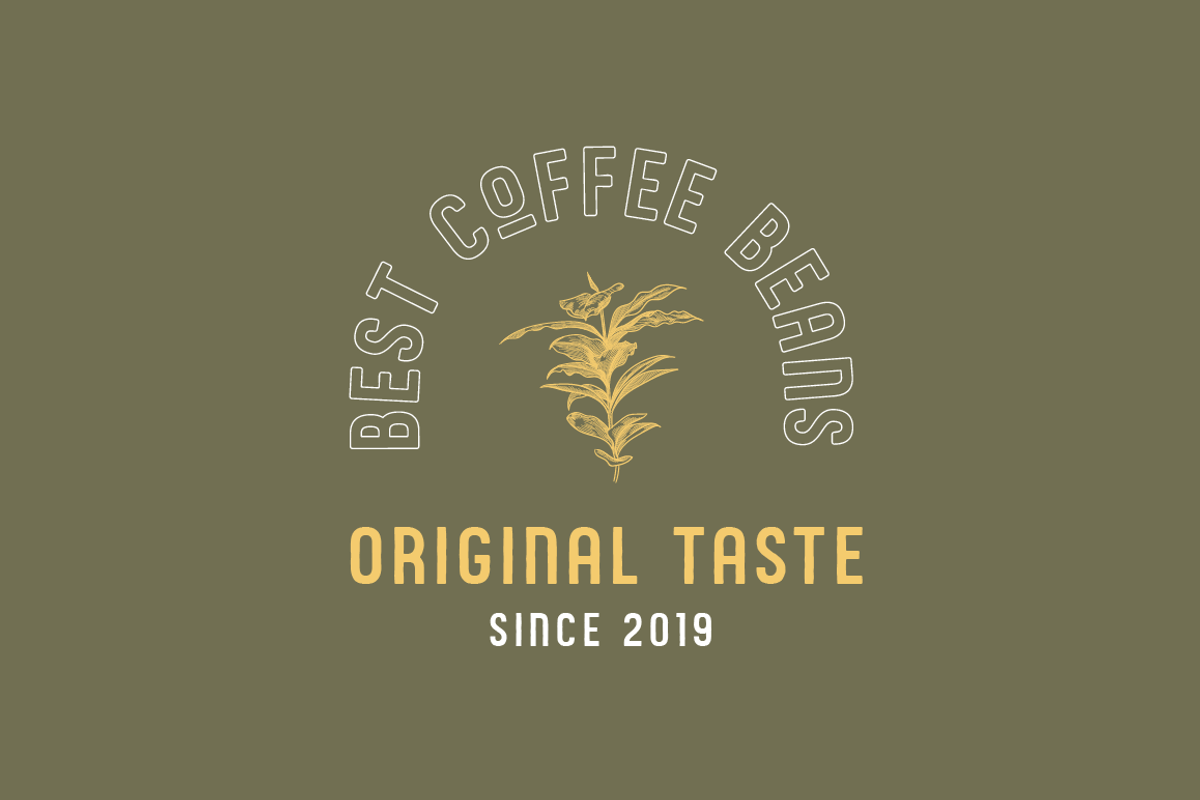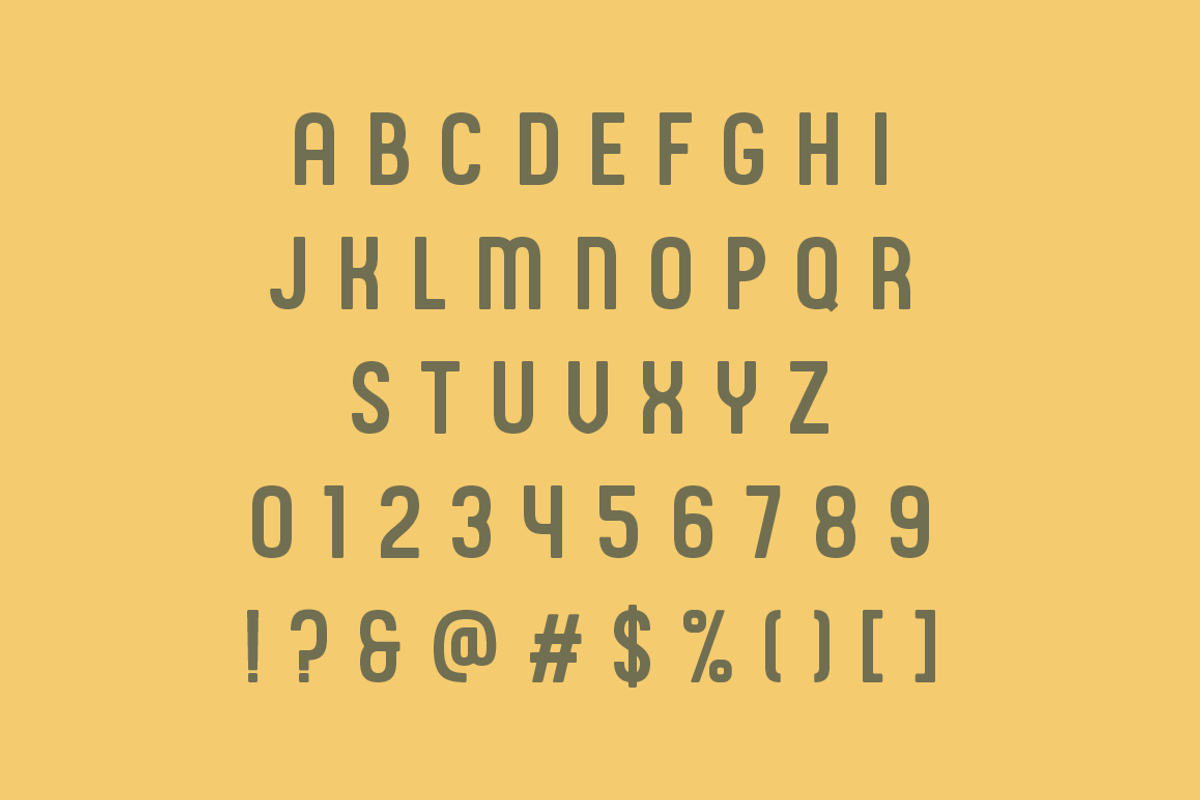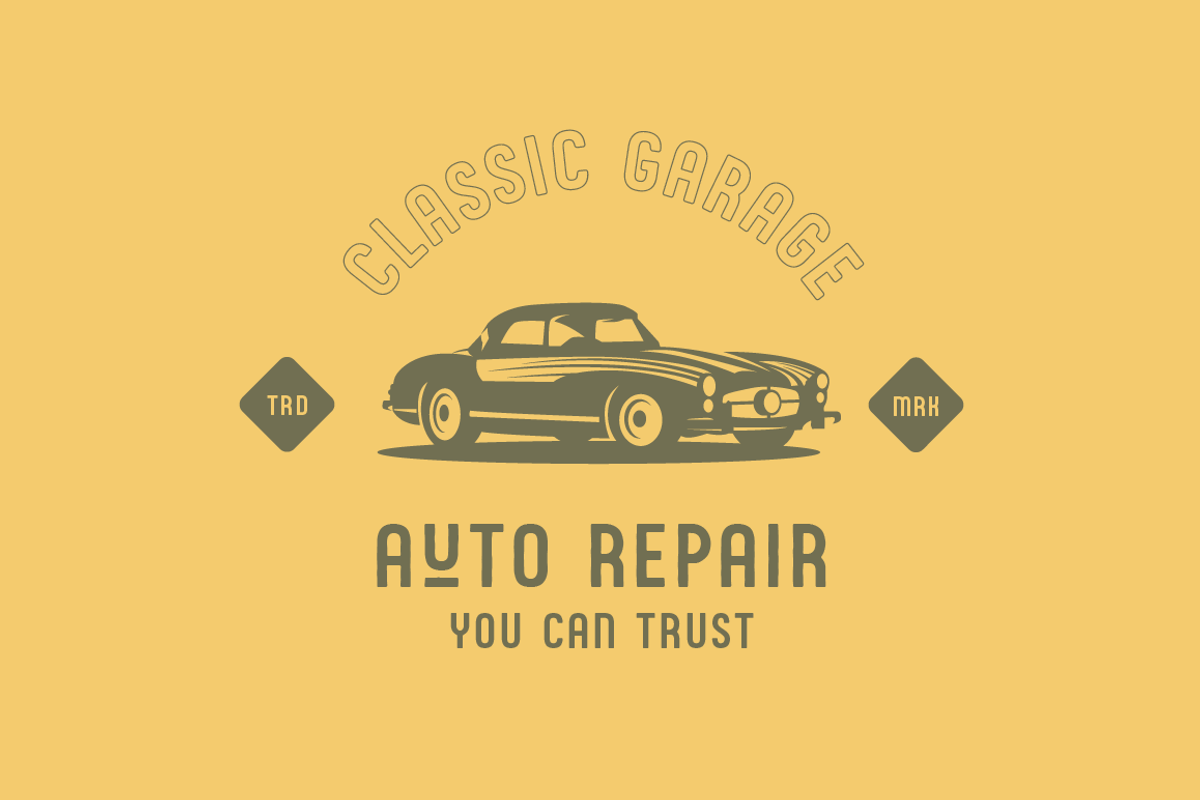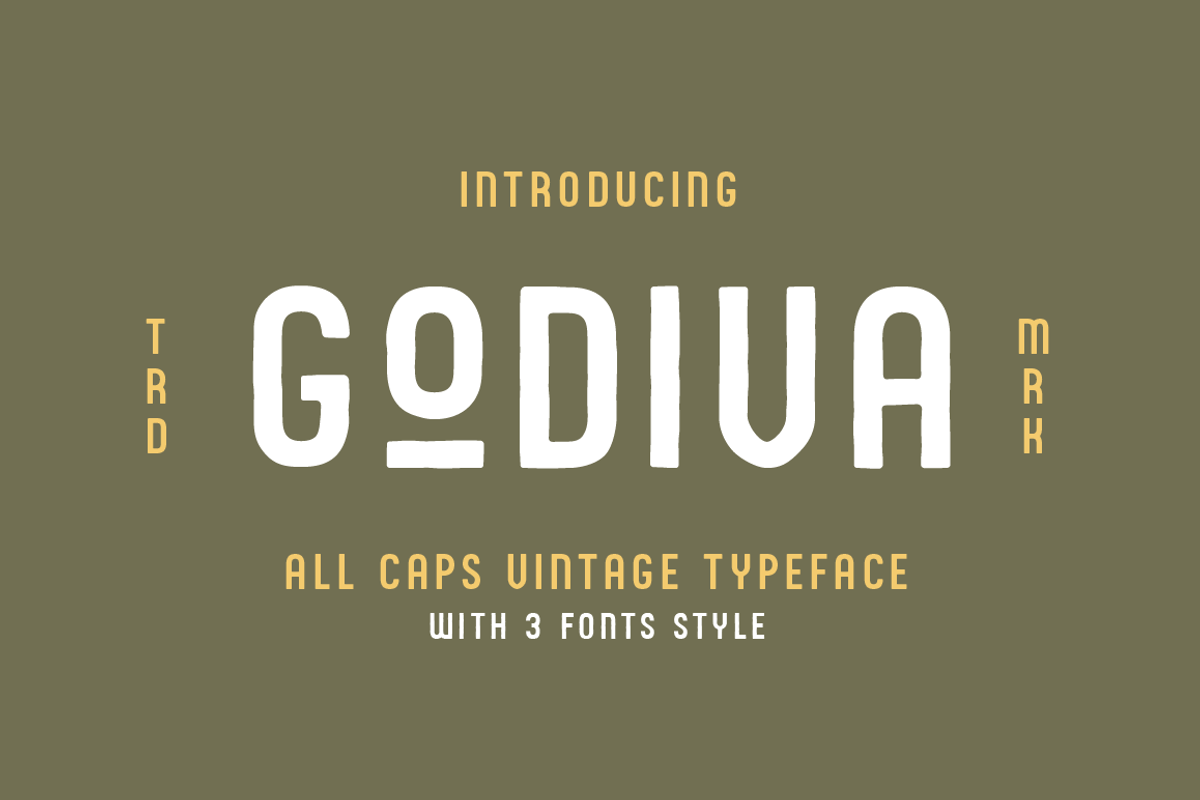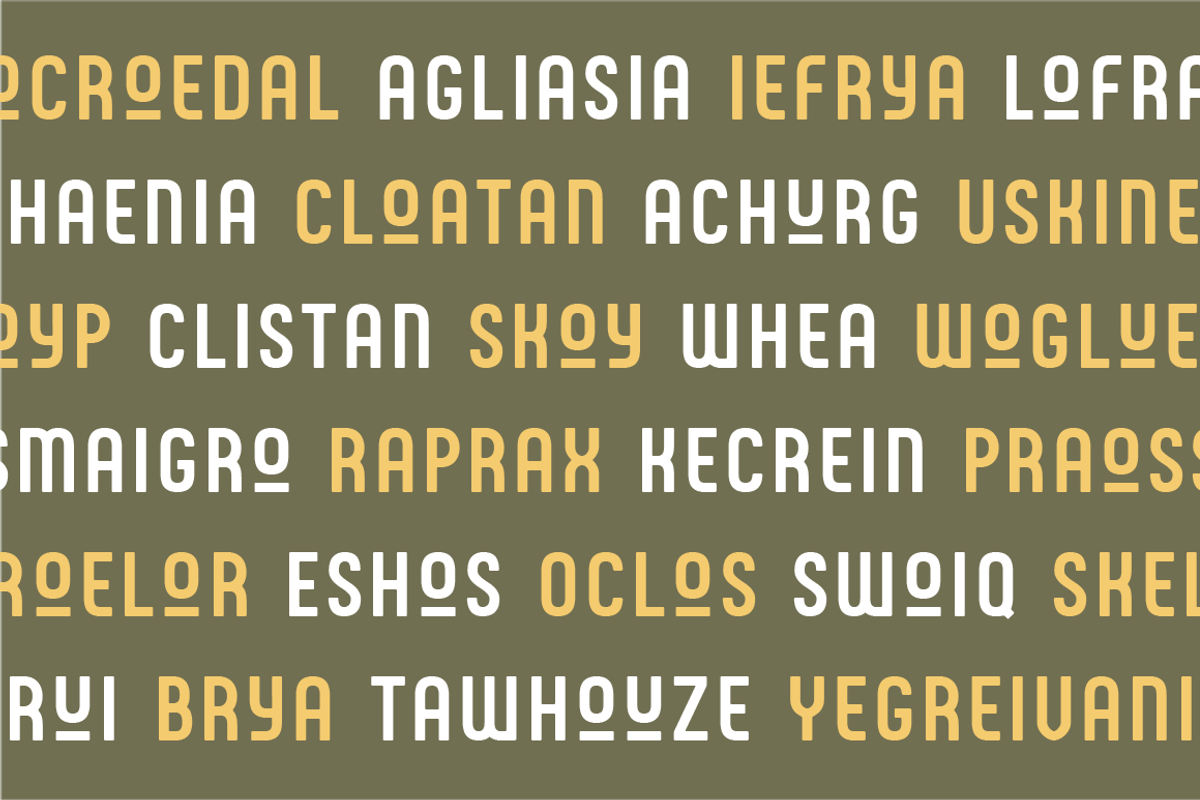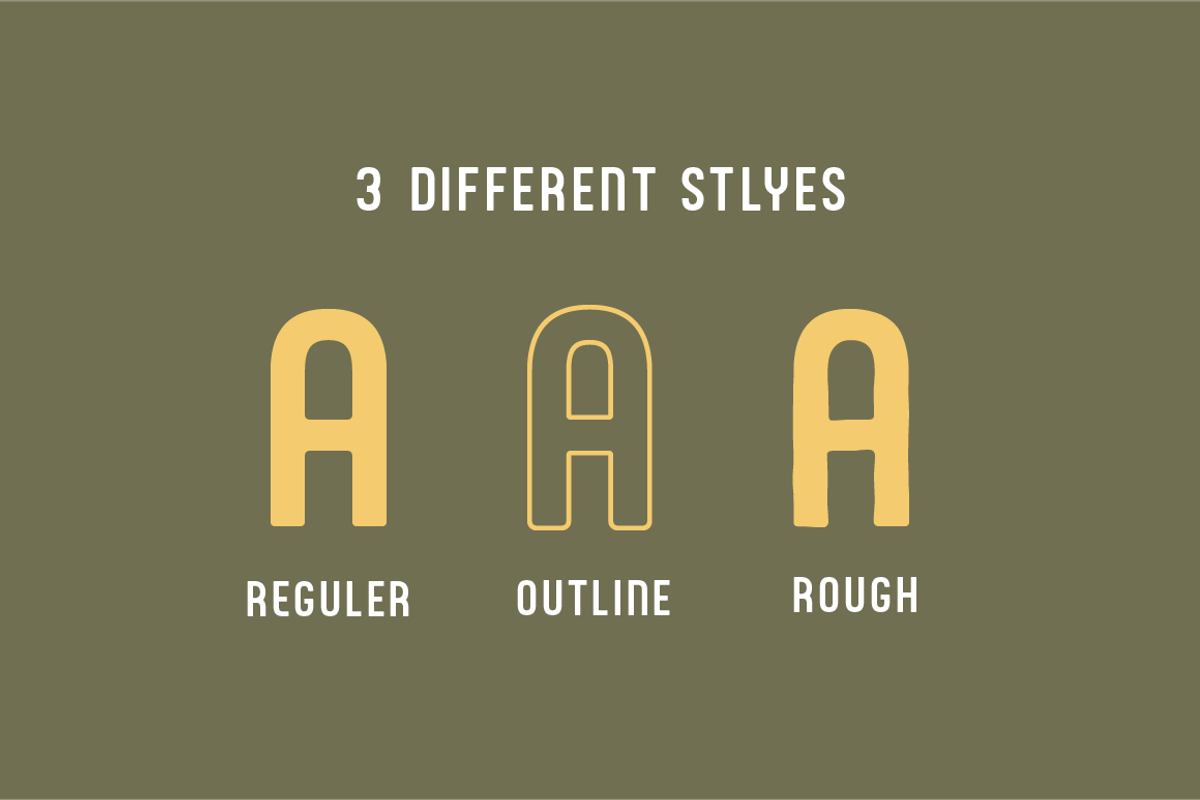
Godiva Vintage Font
Godiva is vintage font family inspired by vintage lettering. It works perfectly for achieving that vintage aesthetic with your designs.